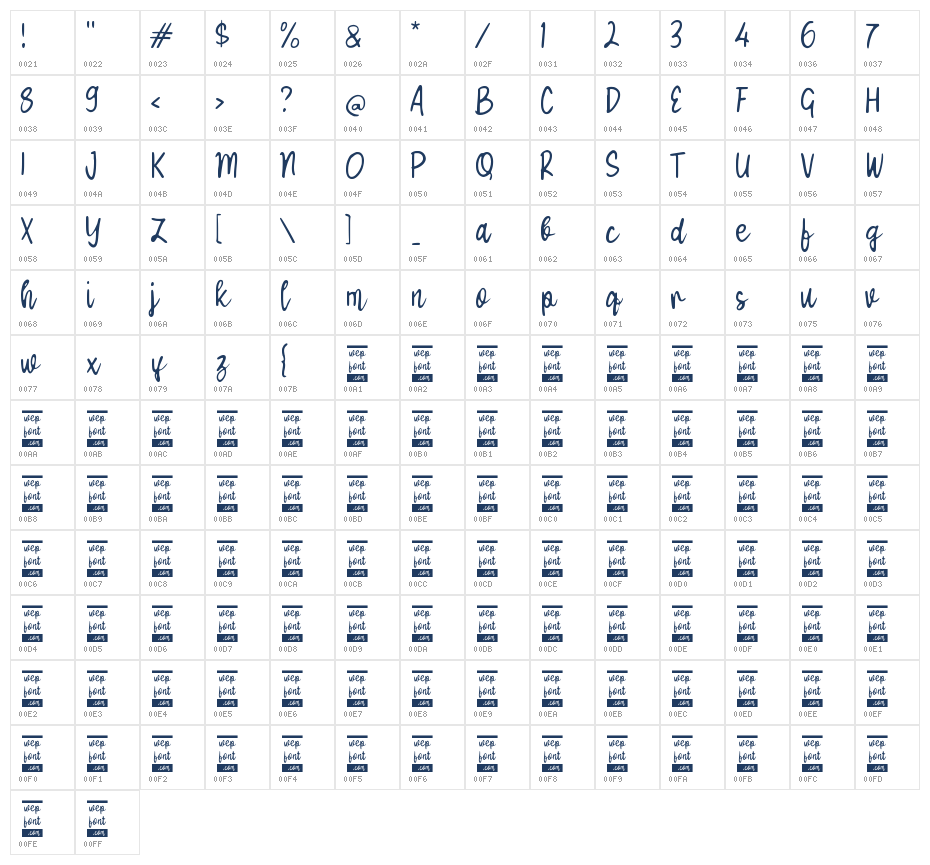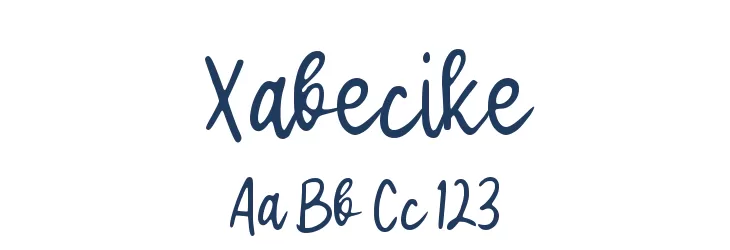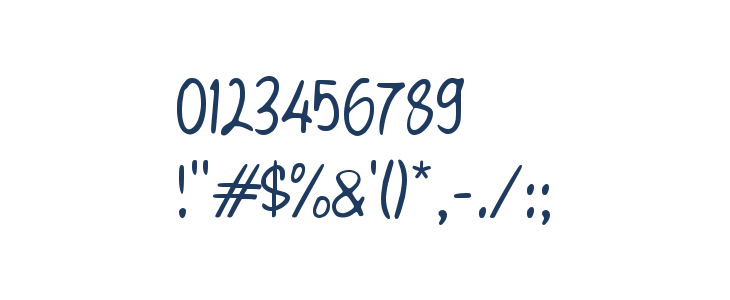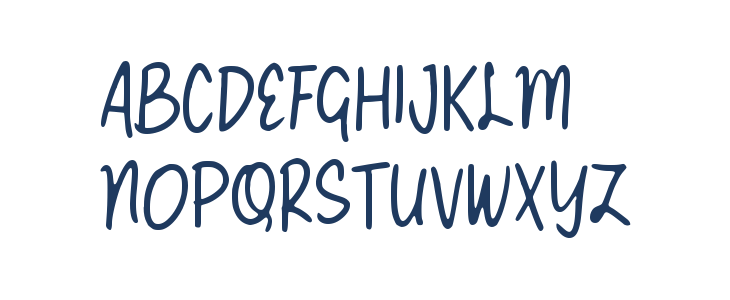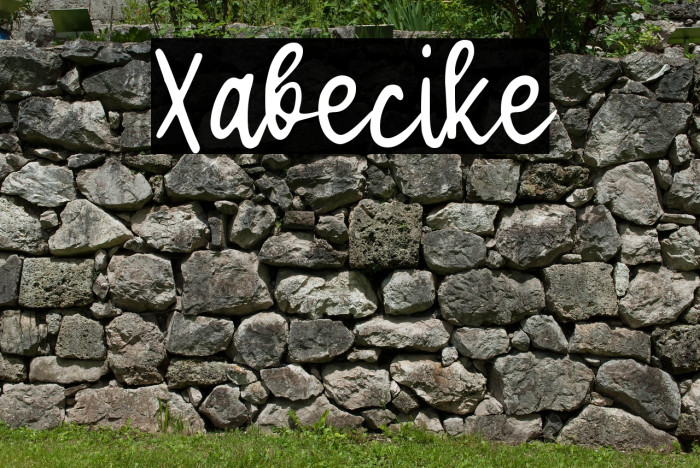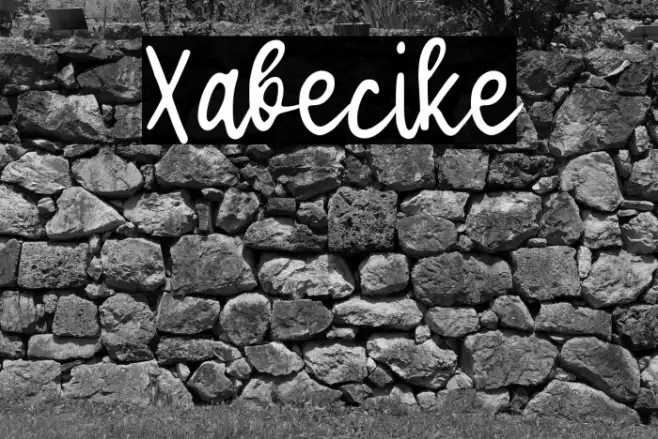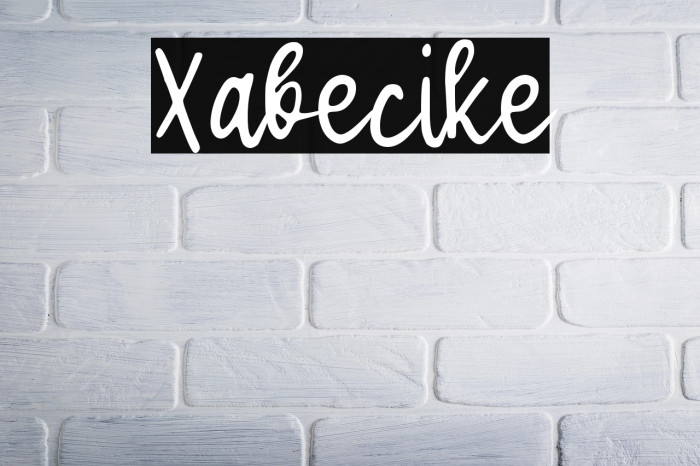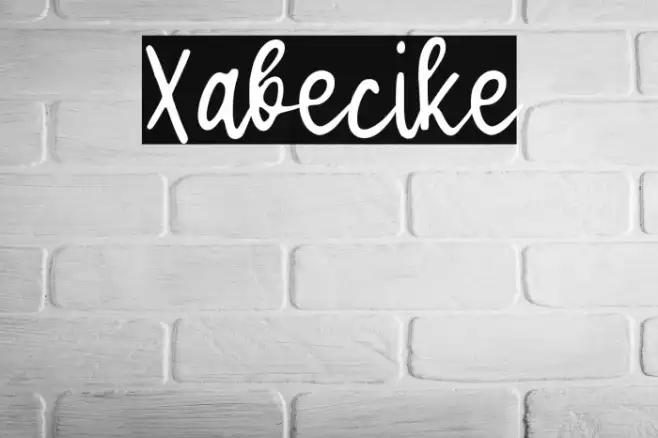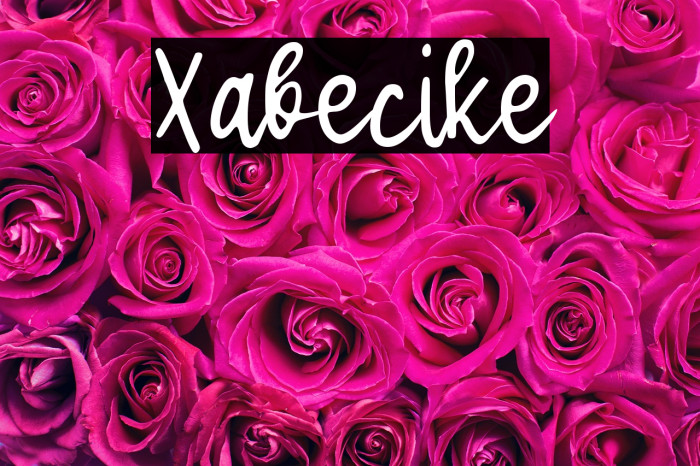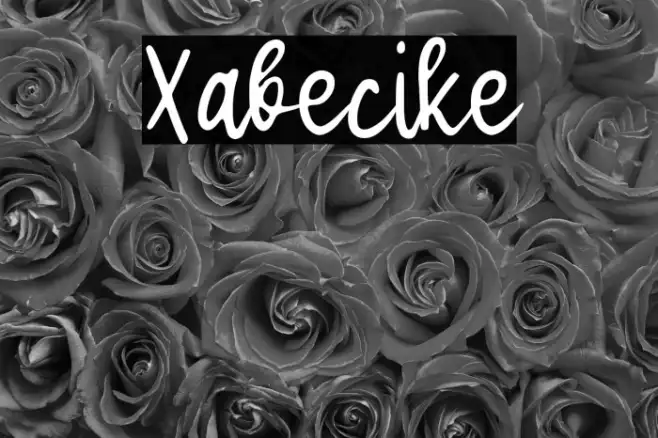
Xabecike Font
Xabecike Description
A casual, handwritten script font with a playful and informal style, featuring slightly irregular strokes and a friendly appearance.
| Overall Style | Casual, Playful, Friendly |
| Use Case | Invitations, Greeting cards, Logos, Branding |